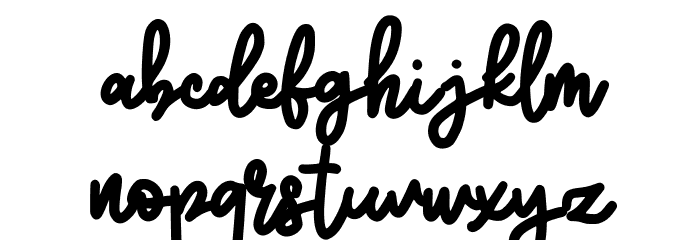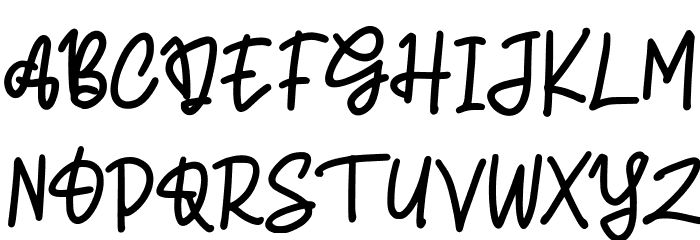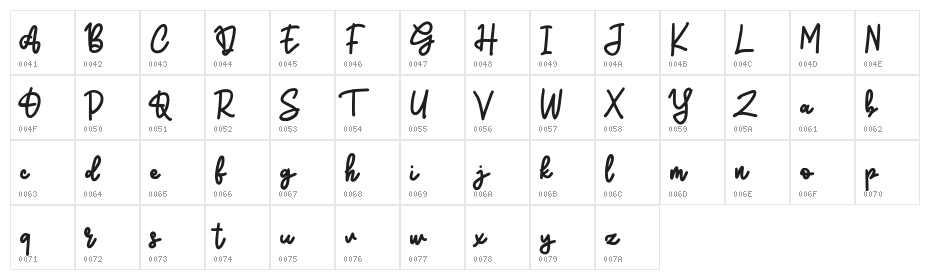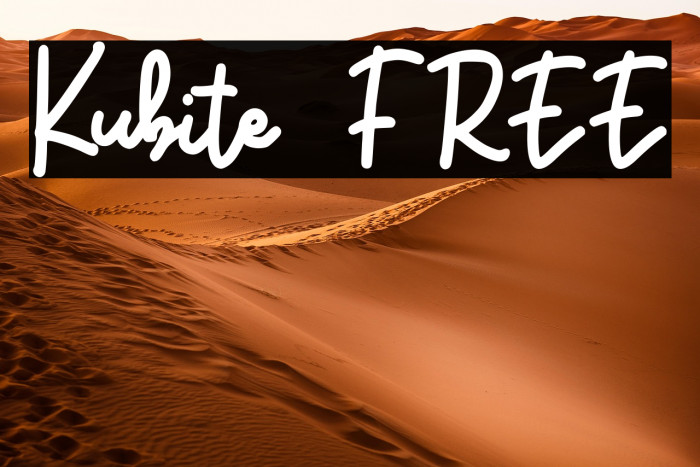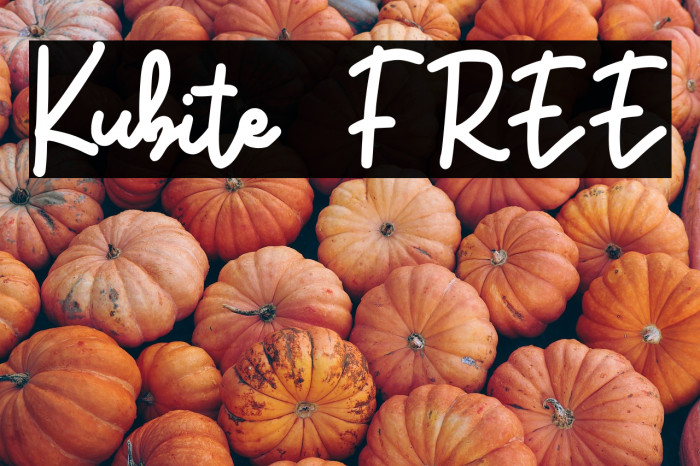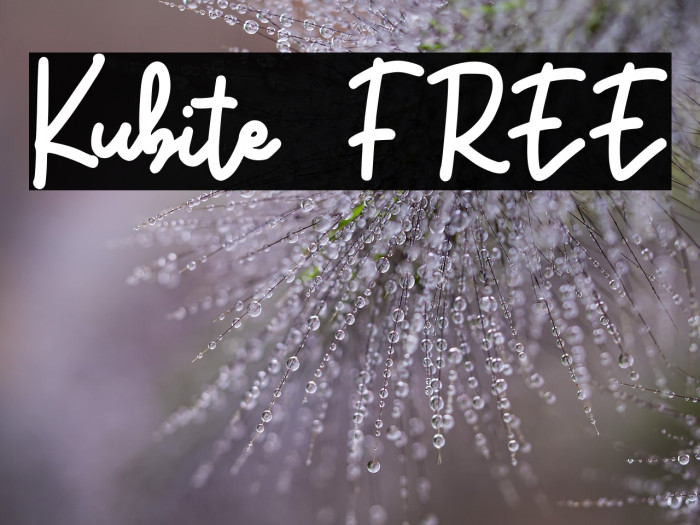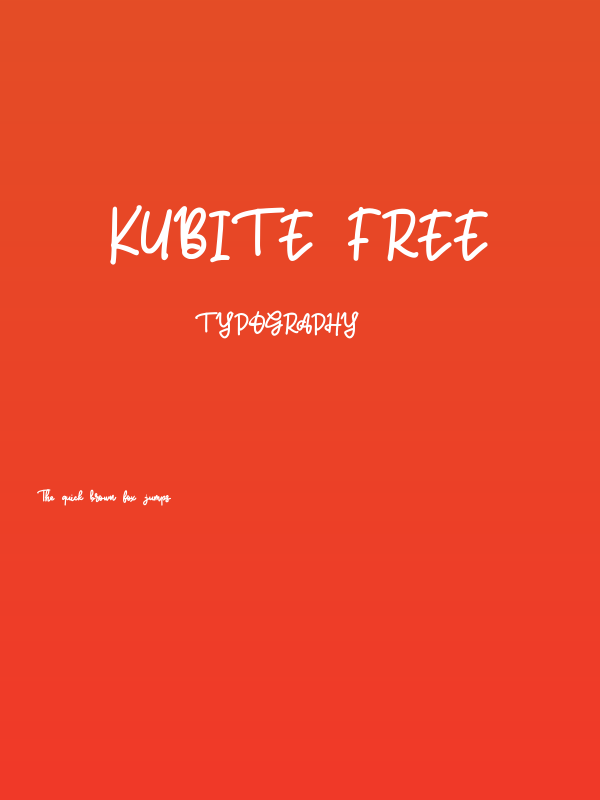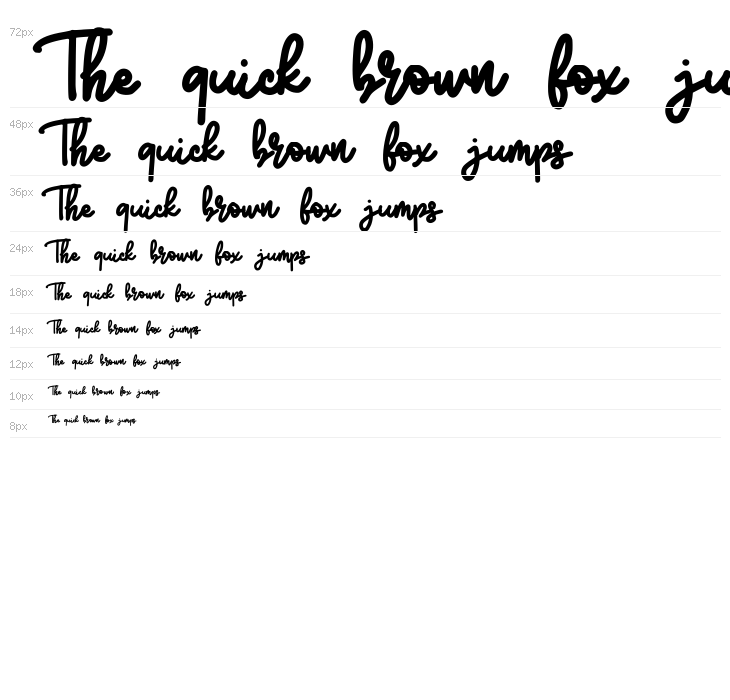
Kubite FREE Font
This font features a playful and energetic script style with a handwritten appearance. The letters are interconnected, creating a fluid and dynamic flow. The uppercase characters are bold and slightly slanted, giving a sense of movement and liveliness. The lowercase letters maintain a consistent style, with rounded edges and a smooth, cursive form. The numbers and special characters are designed to match the overall aesthetic, ensuring a cohesive look across all text elements. This font is ideal for projects that require a personal touch or a casual, friendly vibe.
A playful, handwritten script font with bold, interconnected letters.
- Proposed Projects: Greeting cards, invitations, personal branding, social media graphics, and casual event posters.
- Overall Style: Casual, Playful
- Use Case: Logos, Headlines, Invitations